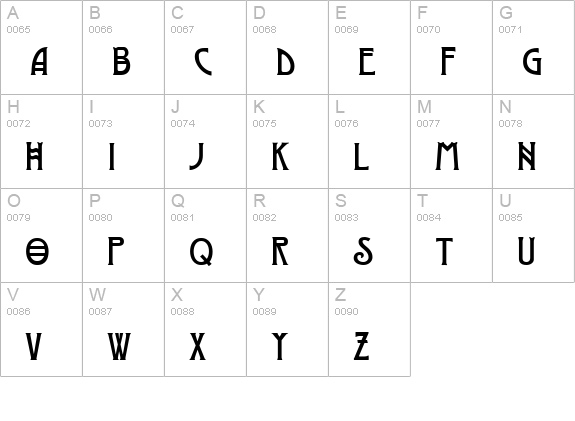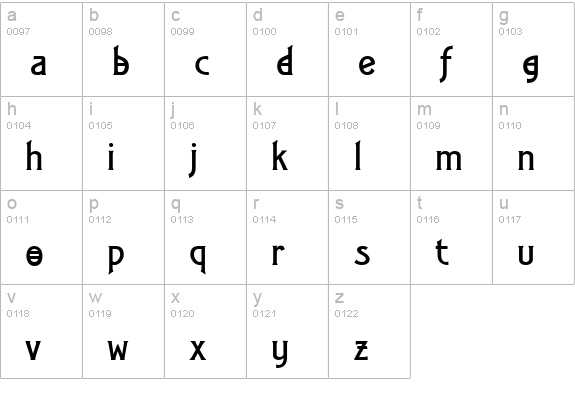
Modernist Two Font Details
Introducing Modernist Two font, a sleek and sophisticated typeface that embodies the essence of modern design. With its clean lines and minimalist aesthetic, this font is perfect for creating contemporary and stylish designs. The geometric shapes and sharp angles give Modernist Two a unique and edgy look that will make your projects stand out. What sets Modernist Two font apart is not only its modern appeal, but also the fact that it is available for free download at FontsMarket.com. This means that you can easily access and use this stylish font in your projects without any cost. Whether you're designing a website, creating branding materials, or crafting social media graphics, Modernist Two font is a versatile choice that will add a touch of sophistication to your work. Don't miss out on the opportunity to elevate your designs with Modernist Two font. Download it for free today at FontsMarket.com and start creating stunning visuals that capture the essence of modern style.